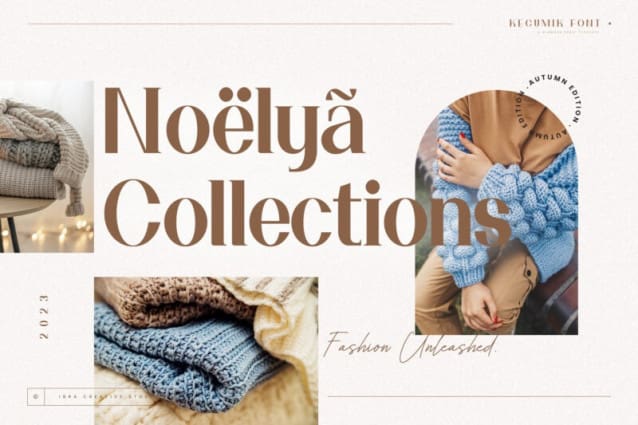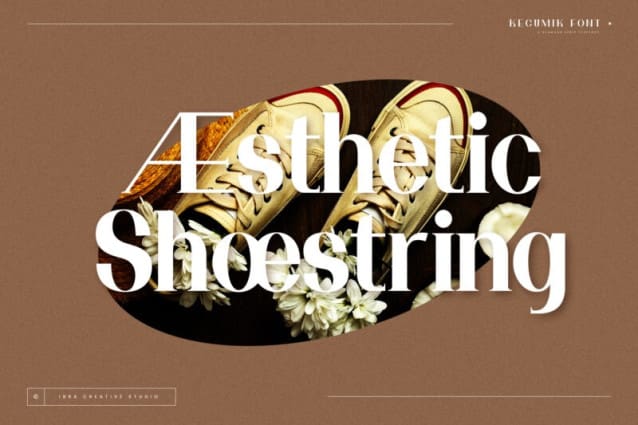
Kecumik Font
Kecumik Font, a stunning Glamour Serif typeface, seamlessly blends elegance with modern sophistication. Its graceful letterforms exhibit a harmonious balance of curves and serifs, exuding a timeless allure that captivates the eye. Kecumik’s intricate details and refined strokes contribute to its distinctive personality, making it an ideal choice for projects that demand a touch of glamour and a nod to classical aesthetics. Whether used in editorial design, branding, or luxury packaging, Kecumik’s versatile charm elevates any visual composition, embodying a sense of refined beauty that resonates across diverse design applications.